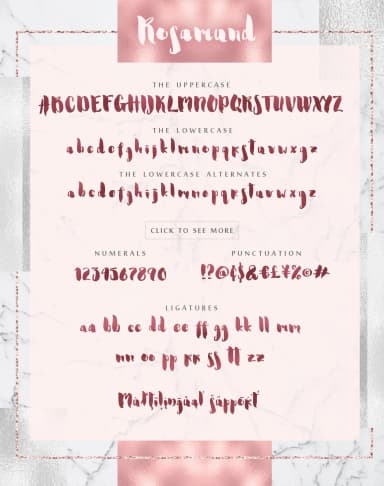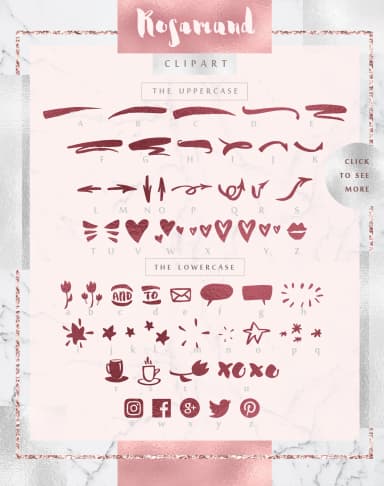
Rosamund Script & Extras by Iradvilyuk is a fluid brush script that captures the energy of hand-lettered designs with its characteristic dynamic down strokes and refined, delicate upstrokes. Created with the expressive quality of a brush pen in mind, this typeface delivers an organic, handwritten feel perfect for brands seeking authentic character in their typography. The design extends beyond the primary script, incorporating over 50 hand-drawn ornaments and illustrations that add distinctive flourishes and decorative flexibility to any composition.
The font truly shines when applied to wedding invitation suites, where its flowing letterforms and complementary ornaments convey elegance and personal touch. It's equally suited for boutique product packaging that needs to stand out on retail shelves, craft-focused greeting cards designed for DIY creators and makers, and social media graphics where handmade aesthetics resonate most powerfully with audiences. The comprehensive ornament library expands creative possibilities, allowing designers to layer decorative elements and build cohesive visual systems without seeking additional graphic resources.
- Elegant, Flowing, Rosamund Script
Rosamund Script & Extras Font is a script font that shines as a display or heading face. Pair it with a clean sans-serif or serif font for body text β the contrast creates a clear hierarchy while the two styles stay balanced and easy to read.
Rosamund Script & Extras Font
by Iradvilyuk